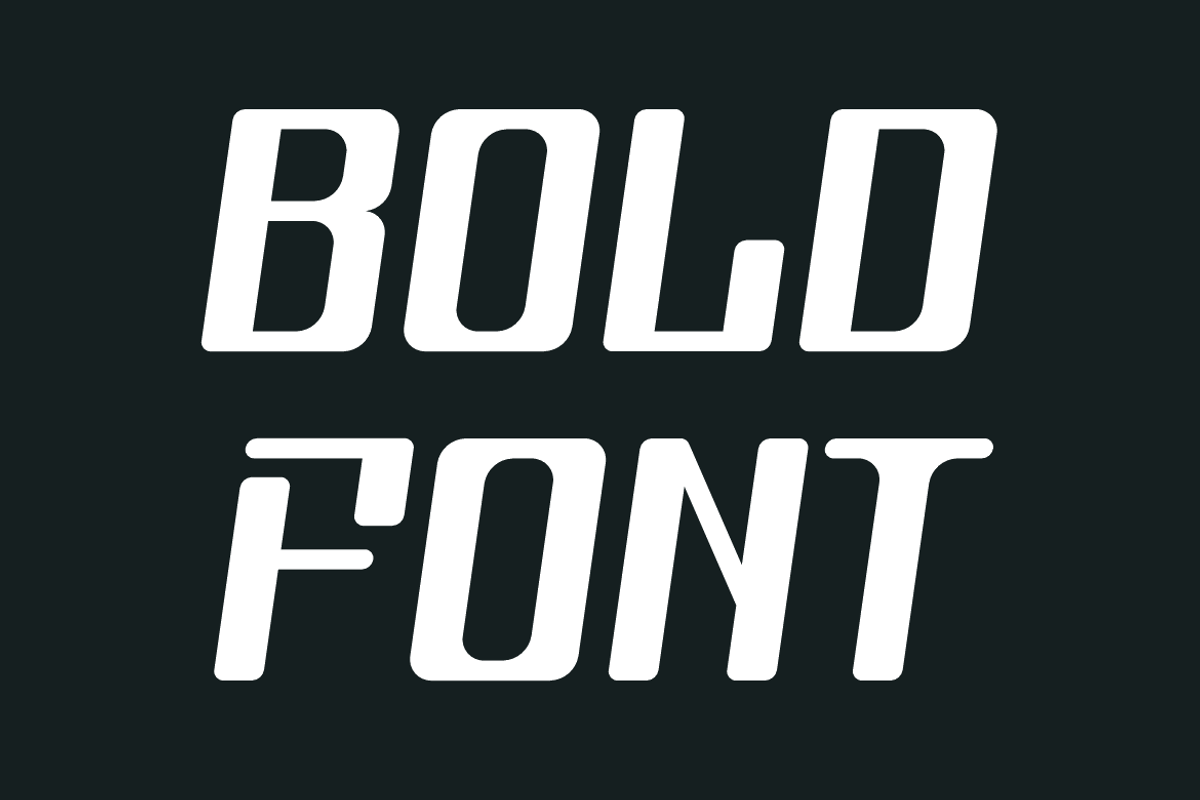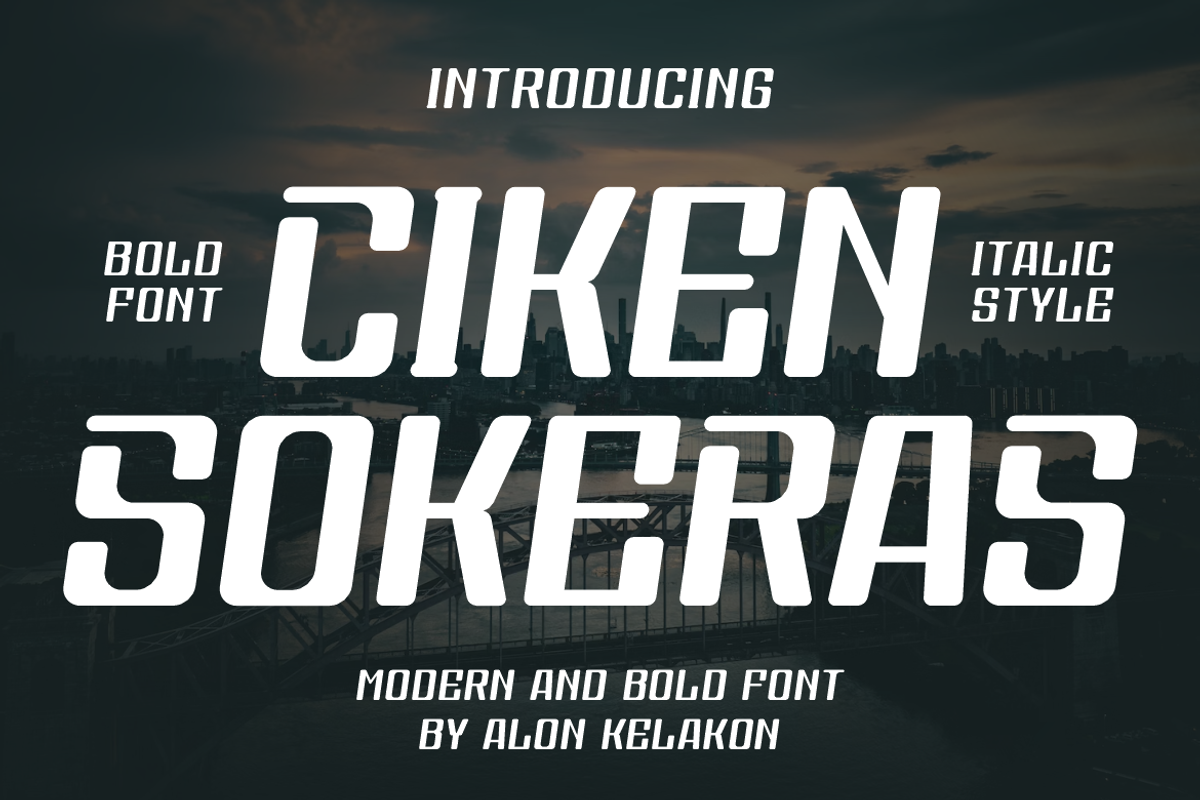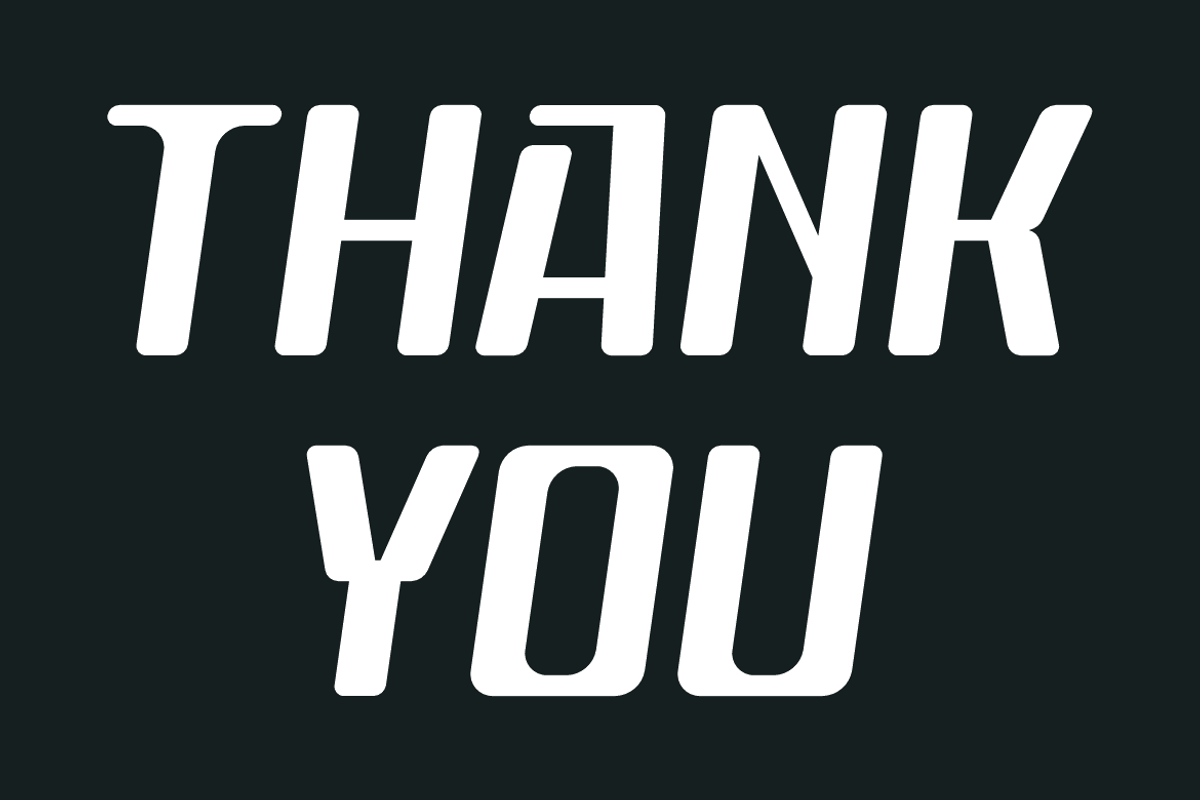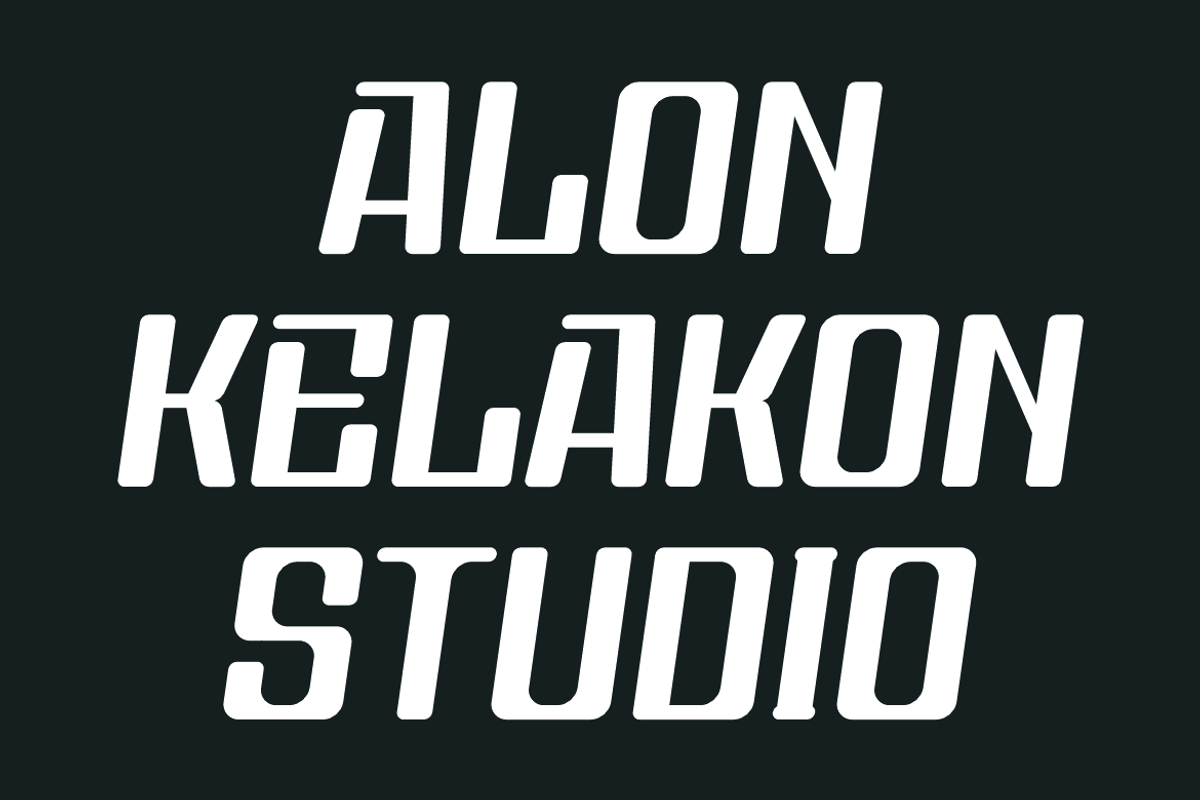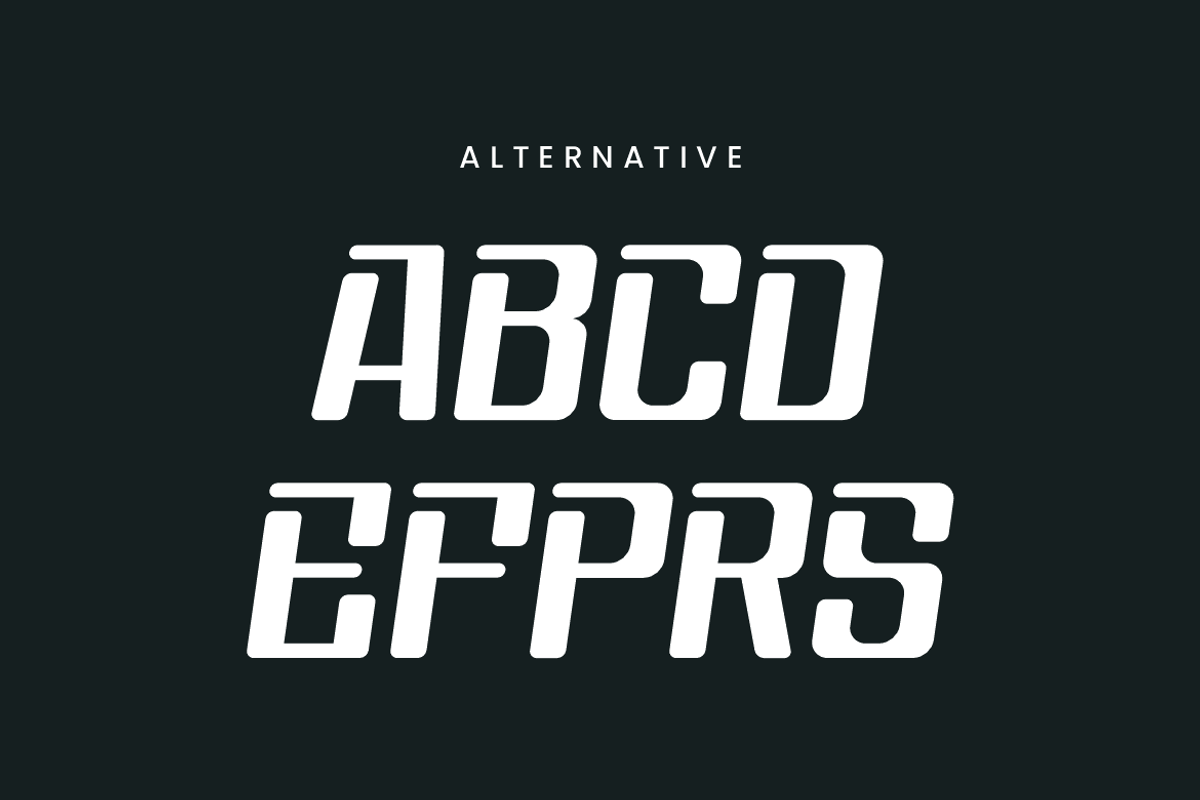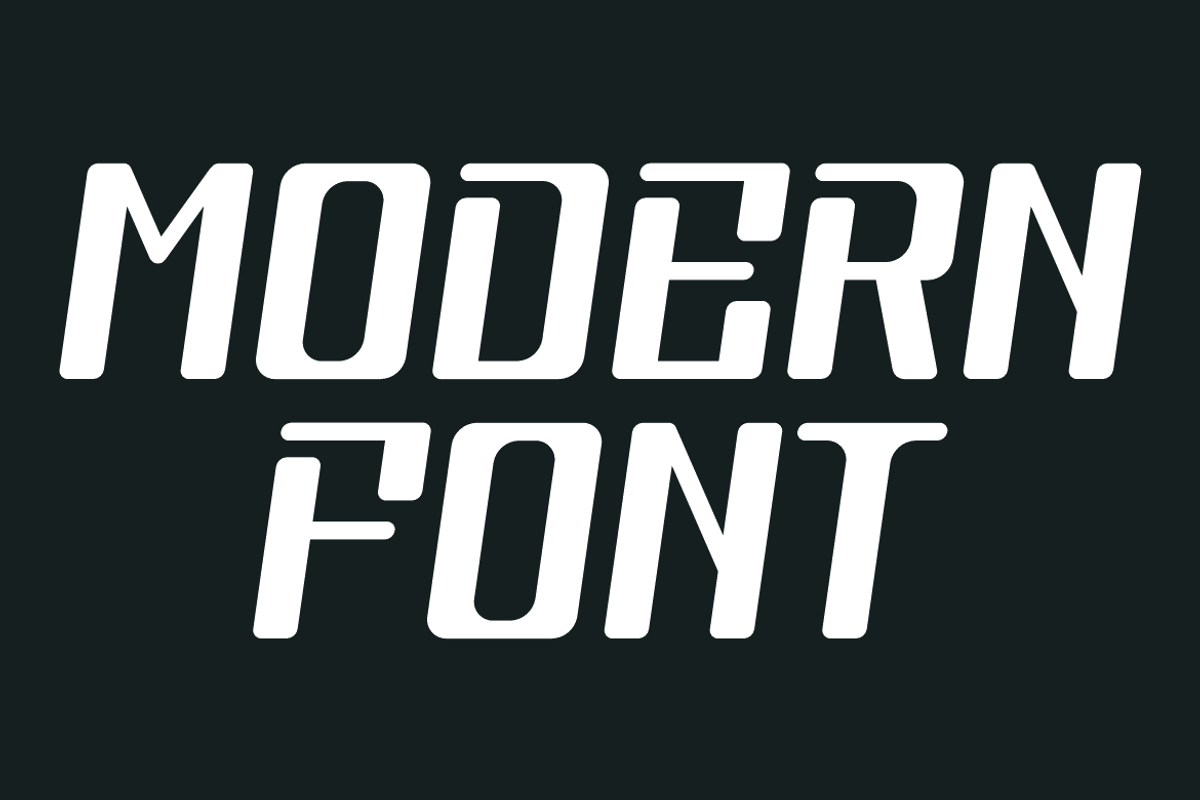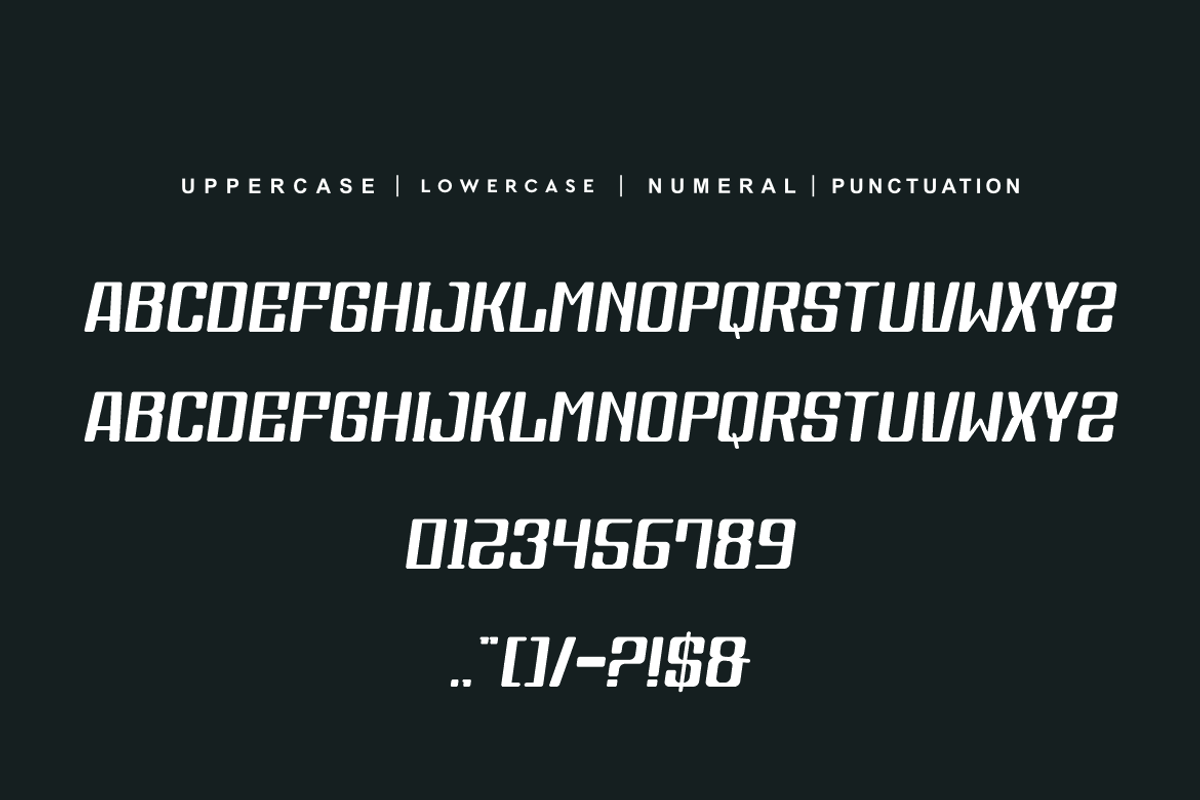
Ciken Sokeras
Ciken Sokeras Font is unique . Ready to use for your design like labeling, movie sceen, poster, movie title, gigs, album covers, logos, and much more.